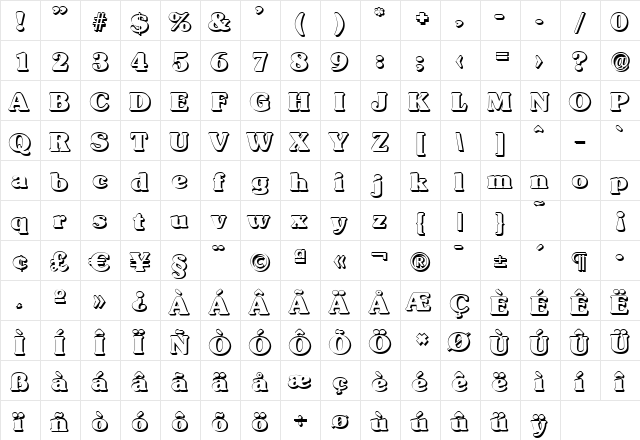
JuliusBeckerShadow-Heavy Regular
Design Context for JuliusBeckerShadow-Heavy Typeface
JuliusBeckerShadow-Heavy brings ornamental detail and strong personality to headlines and identities, where visual impact matters more than quiet functionality.
Font Pairing: Pair with a clean neutral sans-serif for body copy to let JuliusBeckerShadow-Heavy's character lead without overwhelming the composition.
Pro Tip: Use JuliusBeckerShadow-Heavy exclusively at display sizes — it was designed to be seen, not read at length. Let a neutral companion handle body copy.